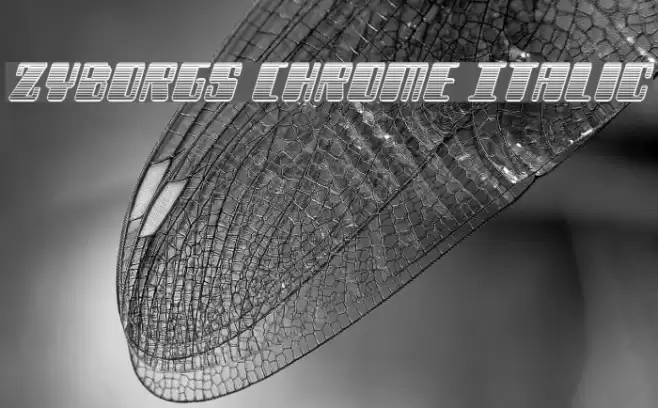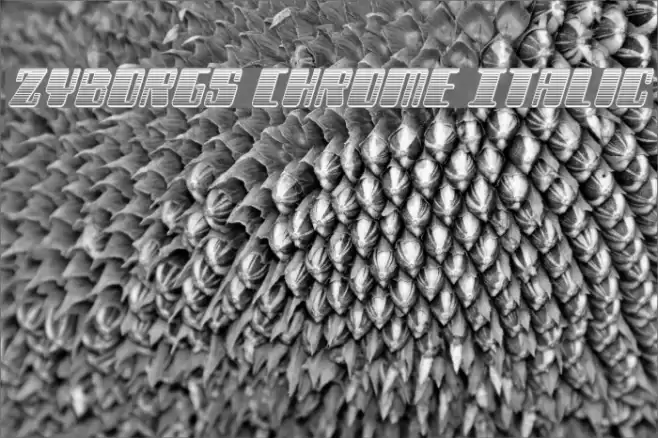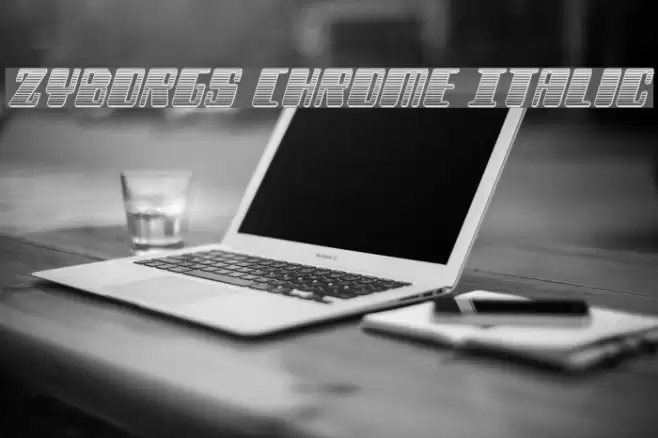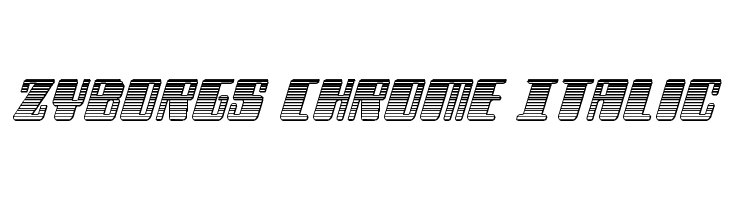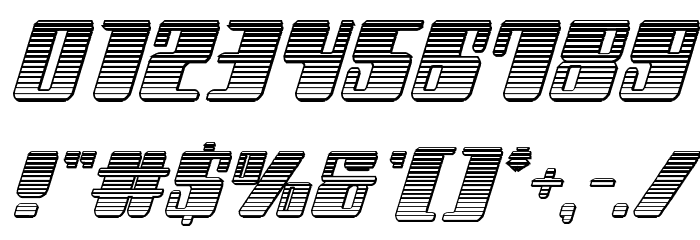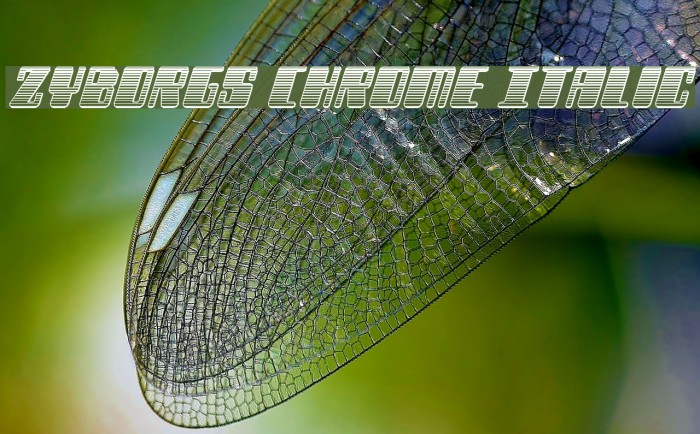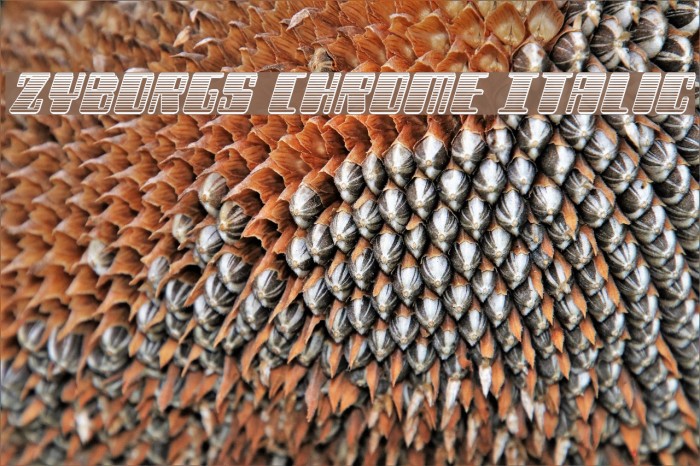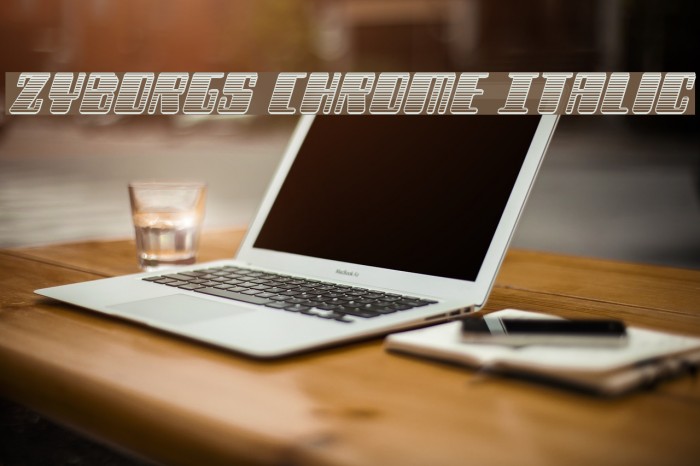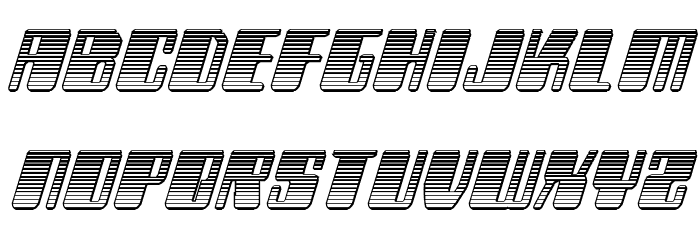
Zyborgs Chrome Italic Font
Zyborgs Chrome Italic Description
This font features a futuristic and dynamic design, characterized by its bold, italicized letters with a distinct chrome-like appearance. Each character is composed of multiple horizontal lines, creating a sense of movement and depth. The uppercase and lowercase letters maintain a consistent style, with angular edges and a slightly condensed form. The numerals and special characters follow the same aesthetic, ensuring uniformity across all elements. This font's unique style makes it stand out, ideal for projects that require a modern and tech-inspired look.
A bold, italicized font with a futuristic chrome-like design from Uncategorized fonts.
- Proposed Projects: Ideal for tech-related branding, sci-fi movie posters, video game titles, and futuristic-themed designs.
- Overall Style: Futuristic